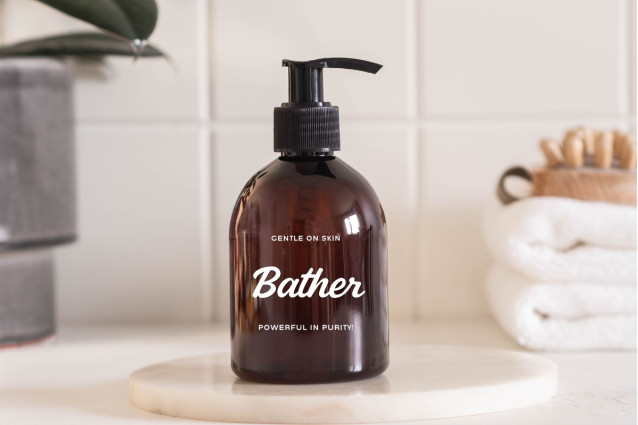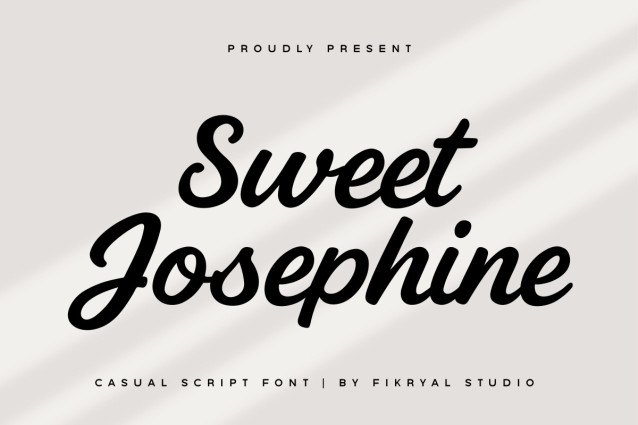
Sweet Josephine Font
Sweet Josephine Font – Casual Script Font is a bold and friendly script typeface that blends modern style with a handcrafted feel. Designed with smooth, confident strokes, this font is perfect for branding, logos, packaging, quotes, social media graphics, and more.
Packed with ligatures and alternate characters, Sweet Josephine gives you plenty of typographic variety, allowing you to create natural-looking text with a personalized touch.